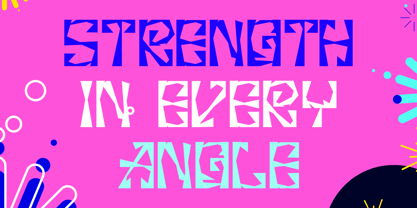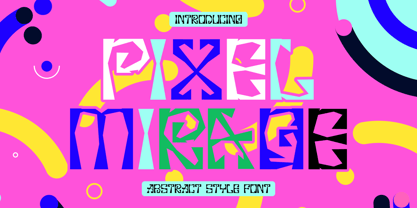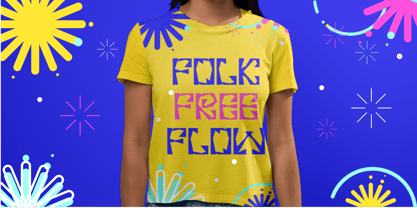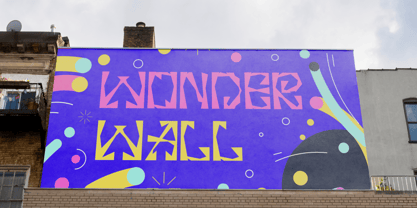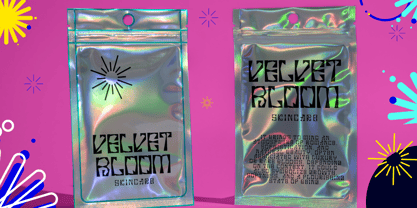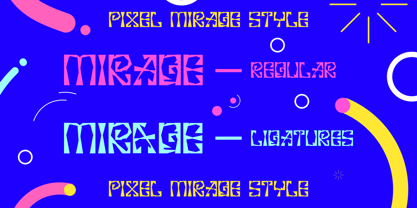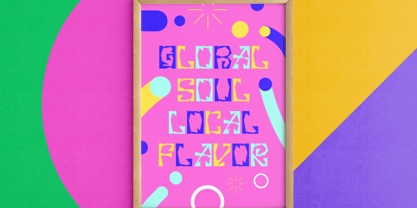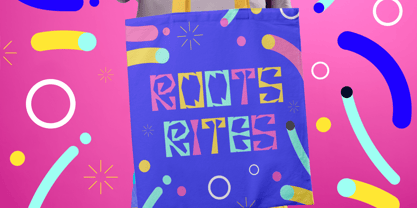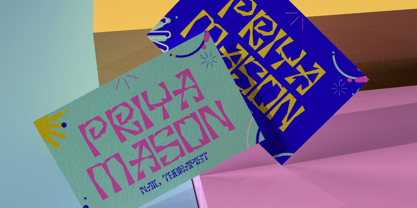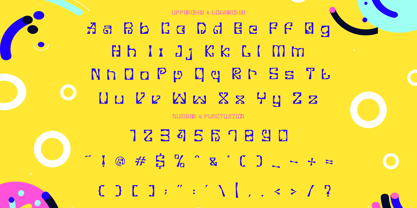
Pixel Mirage
A família de fontes Pixel Mirage foi desenhada por Yesie Erma Yunita e publicada pela Shanaf. Pixel Mirage contém 1 estilos.
Pixel Mirage Abstract Style Font is a bold and artistic typeface that merges pixelated precision with abstract design elements. Each character is constructed from fragmented geometric blocks, creating a unique, mosaic-like texture that feels both retro and futuristic. The font embraces an experimental aesthetic, ideal for projects that aim to push creative boundaries. With its pixel-based construction, it works beautifully for glitch effects, layered colors, or minimalist compositions, giving designers plenty of room to explore bold visual statements.
Perfect for posters, album covers, digital branding, packaging, and editorial layouts, Pixel Mirage adapts to both print and screen use. It’s especially suited for themes involving technology, gaming, abstract art, and experimental visuals. This font includes uppercase, lowercase, numbers, and punctuation, ensuring full creative versatility. Whether you’re building a brand with a cutting-edge personality or designing an abstract art exhibition flyer, Pixel Mirage delivers an impactful and unmistakable style that demands attention.